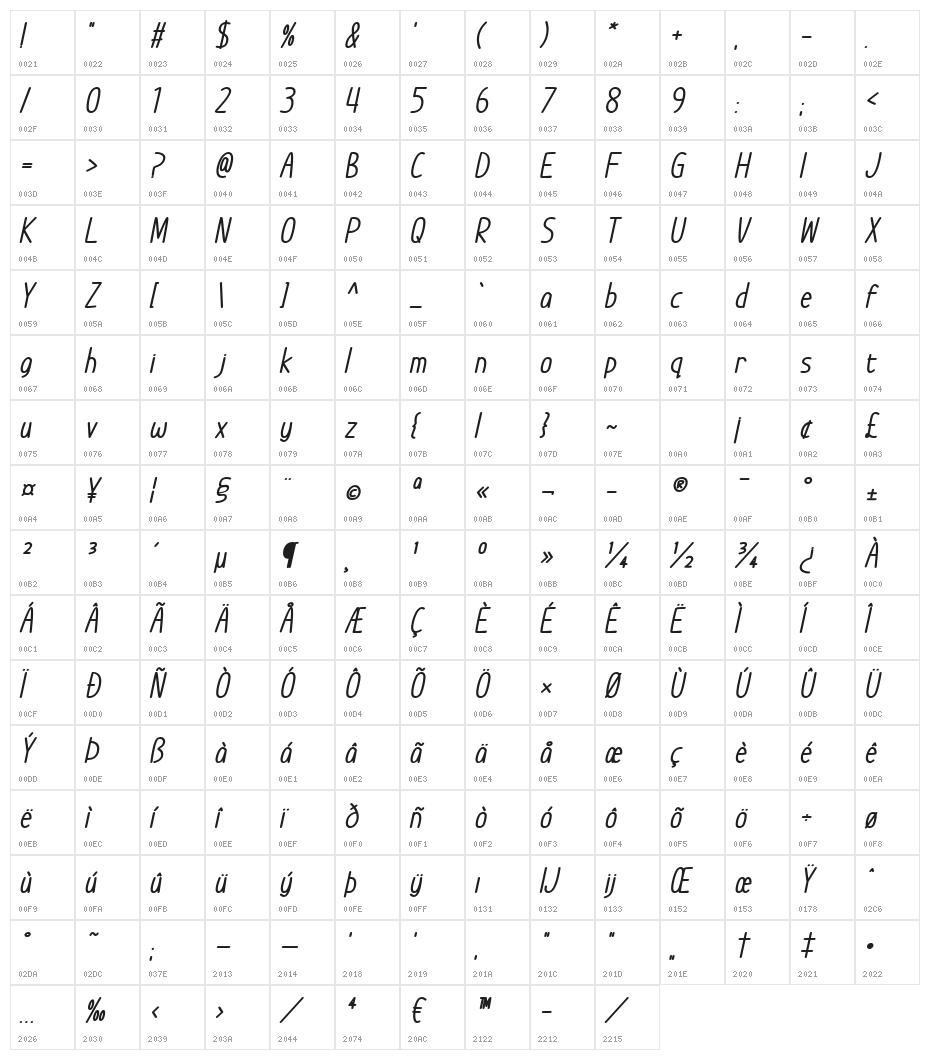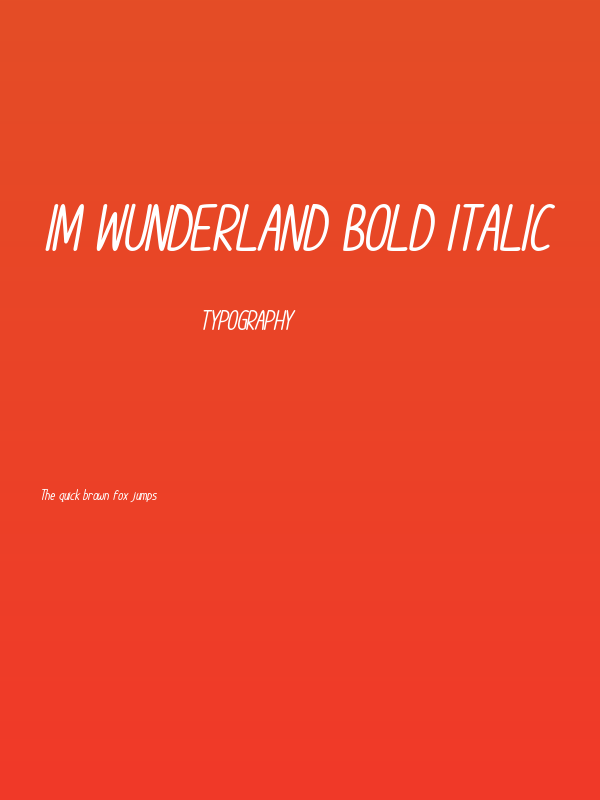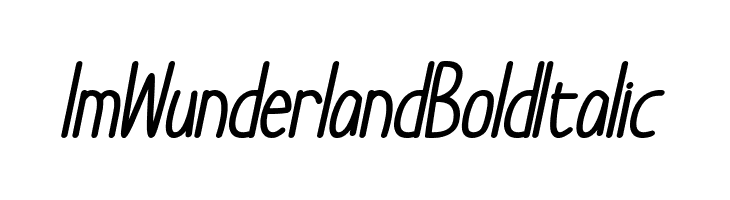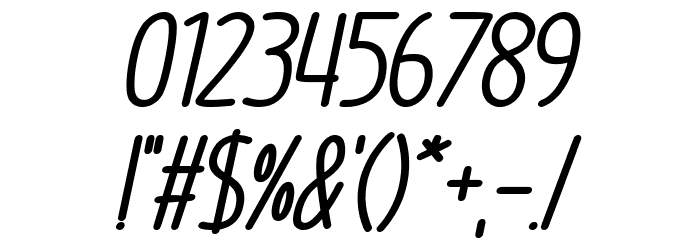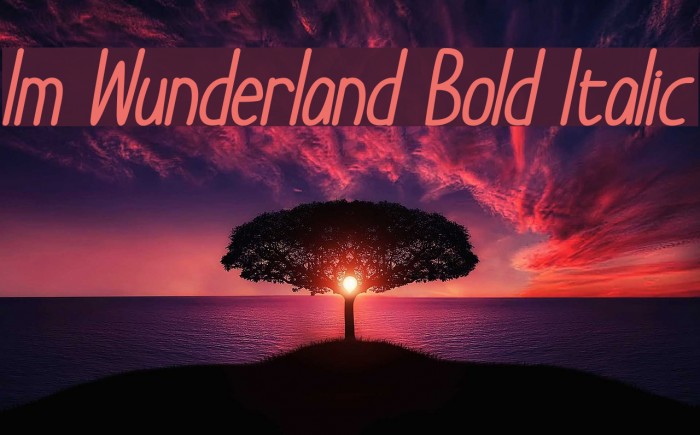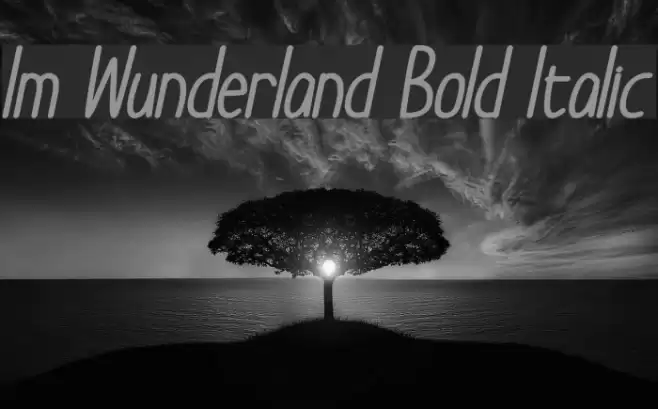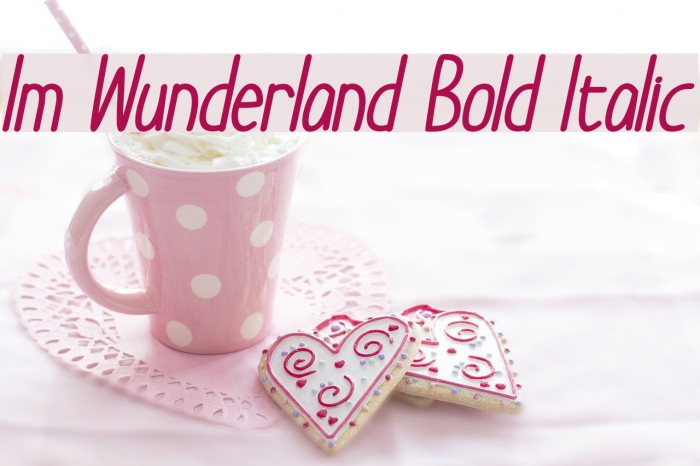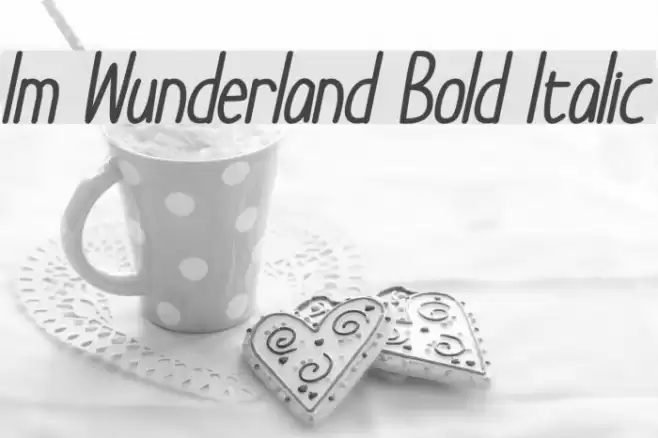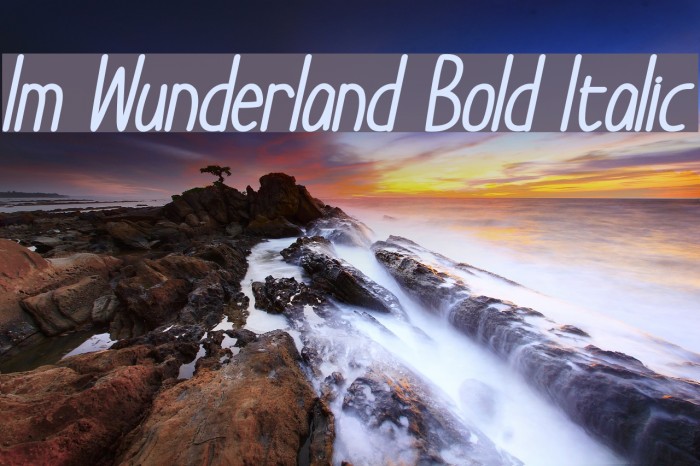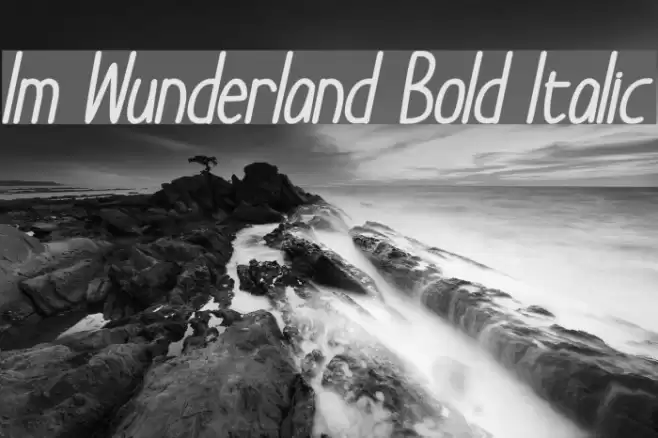
Im Wunderland Bold Italic Font
Im Wunderland Bold Italic Description
This font exhibits a playful and dynamic style, characterized by its bold and italicized form. The letters are slightly slanted, giving a sense of movement and energy. The strokes are consistent in weight, providing a uniform appearance across all characters. The rounded edges and smooth curves contribute to a friendly and approachable look. The numerals and special characters maintain the same lively aesthetic, ensuring cohesion throughout the typeface. This font is well-suited for projects that require a touch of whimsy and creativity.
| Overall Style | Playful |
| Proposed Projects | Ideal for children's books, playful branding, creative posters, and informal invitations. |
| Author | Fonts by Burntilldead |